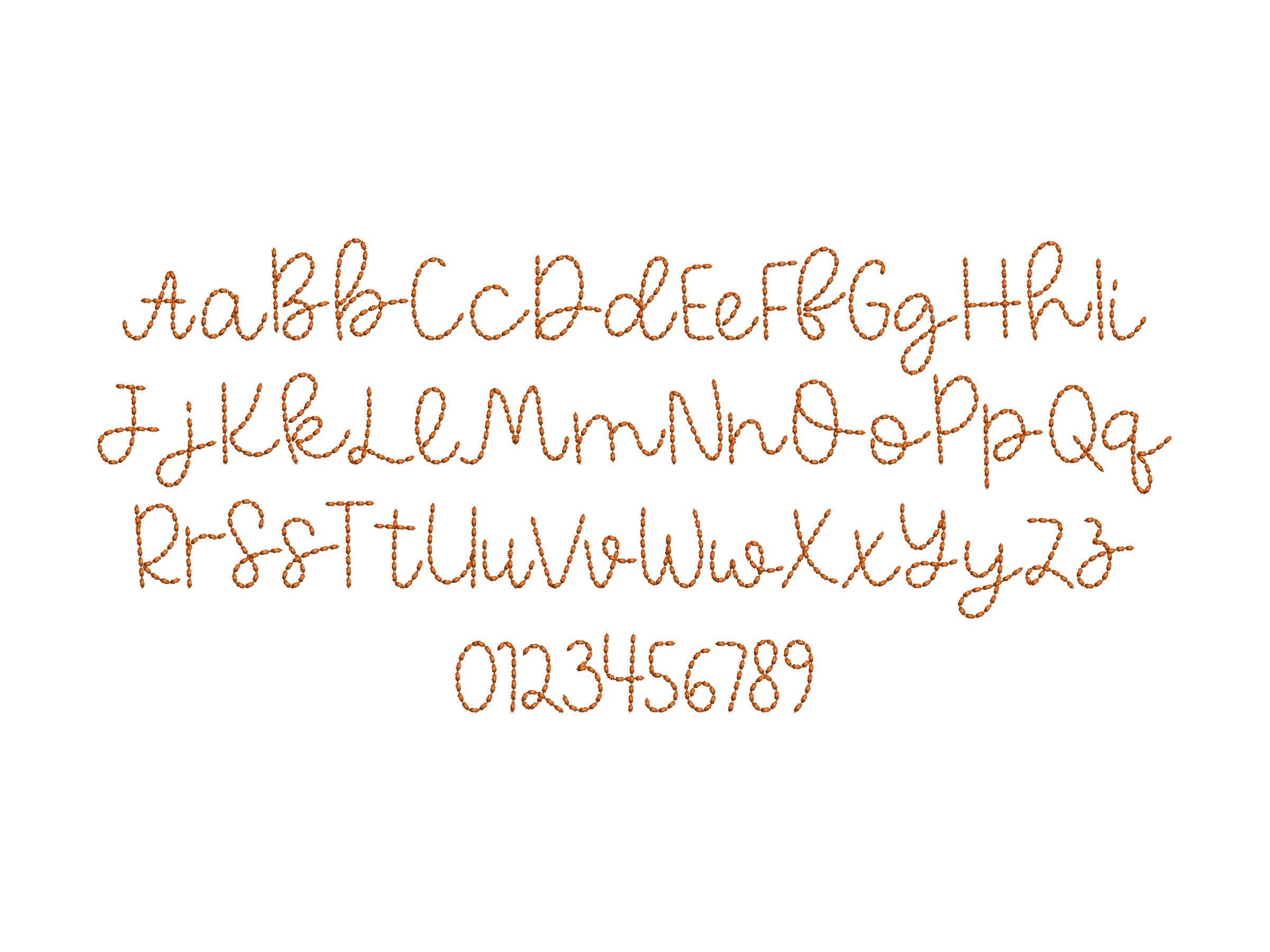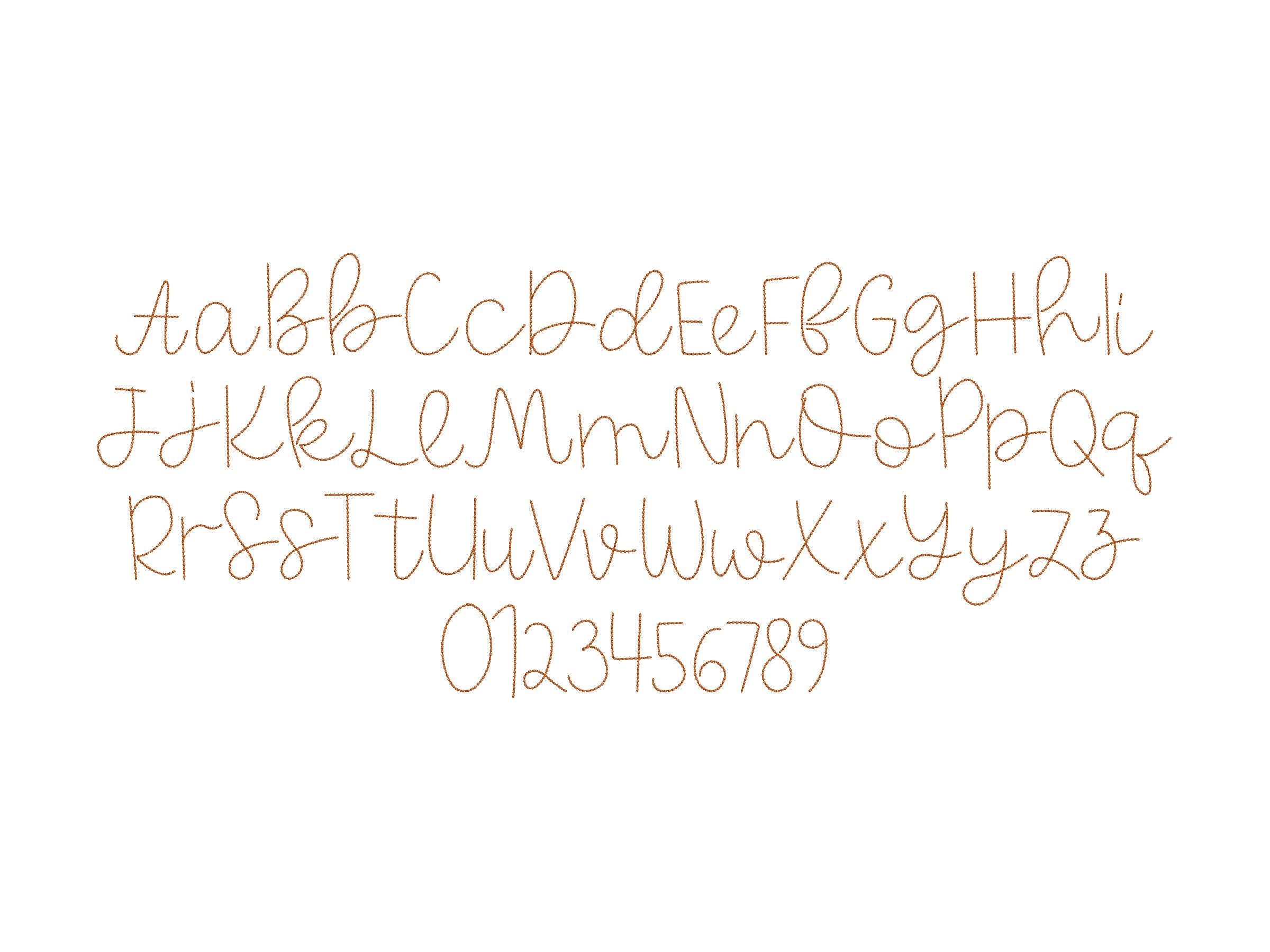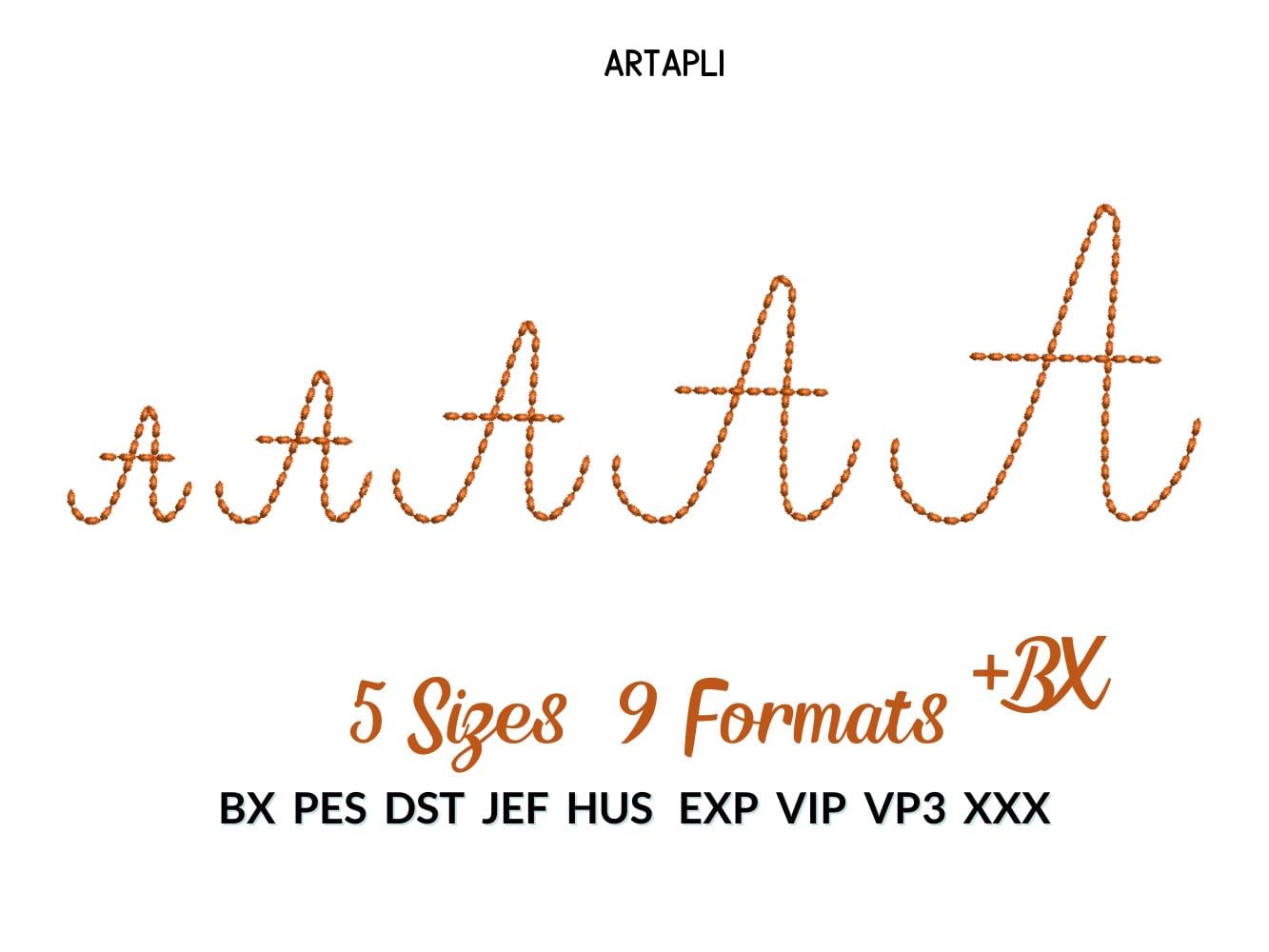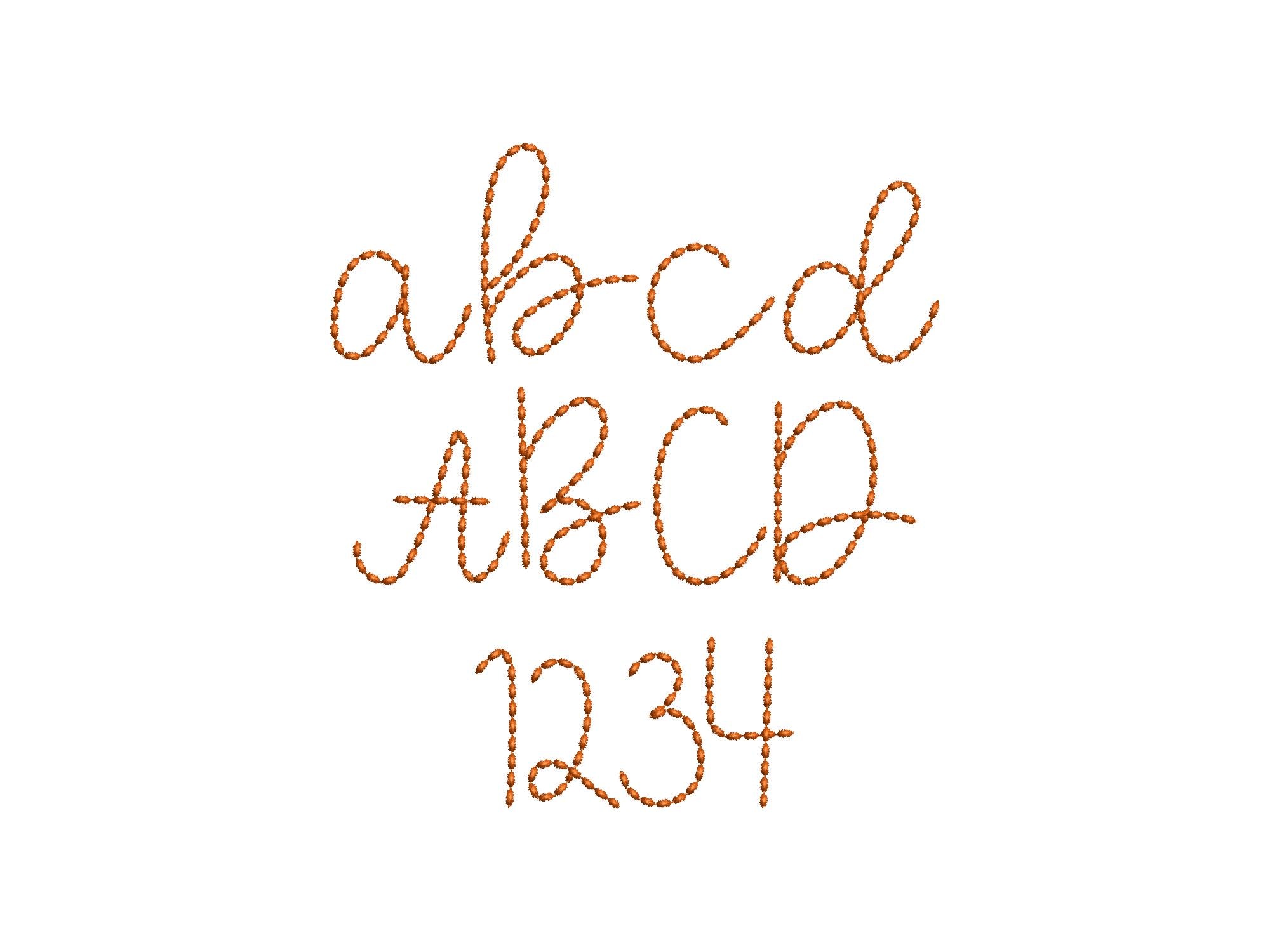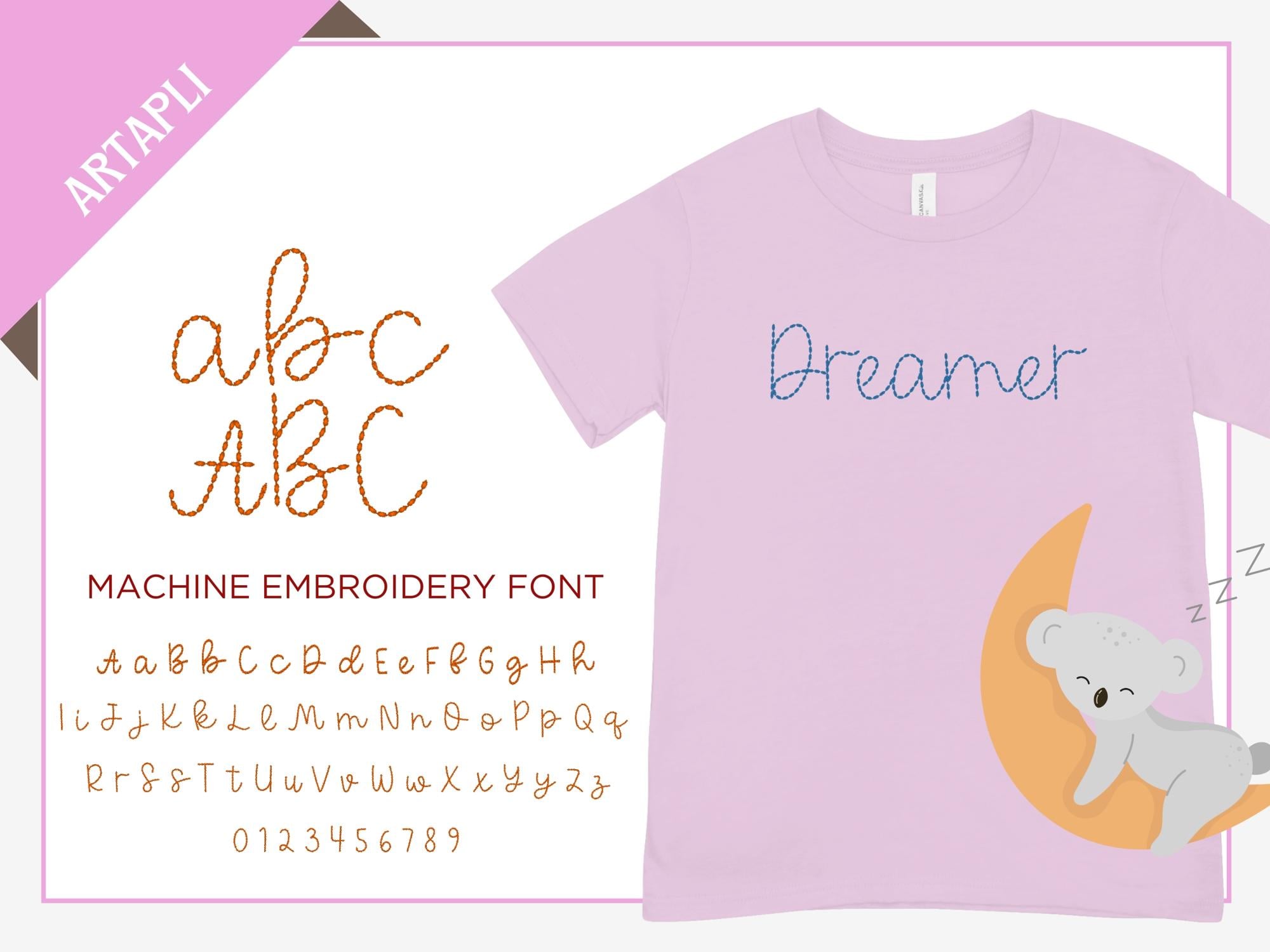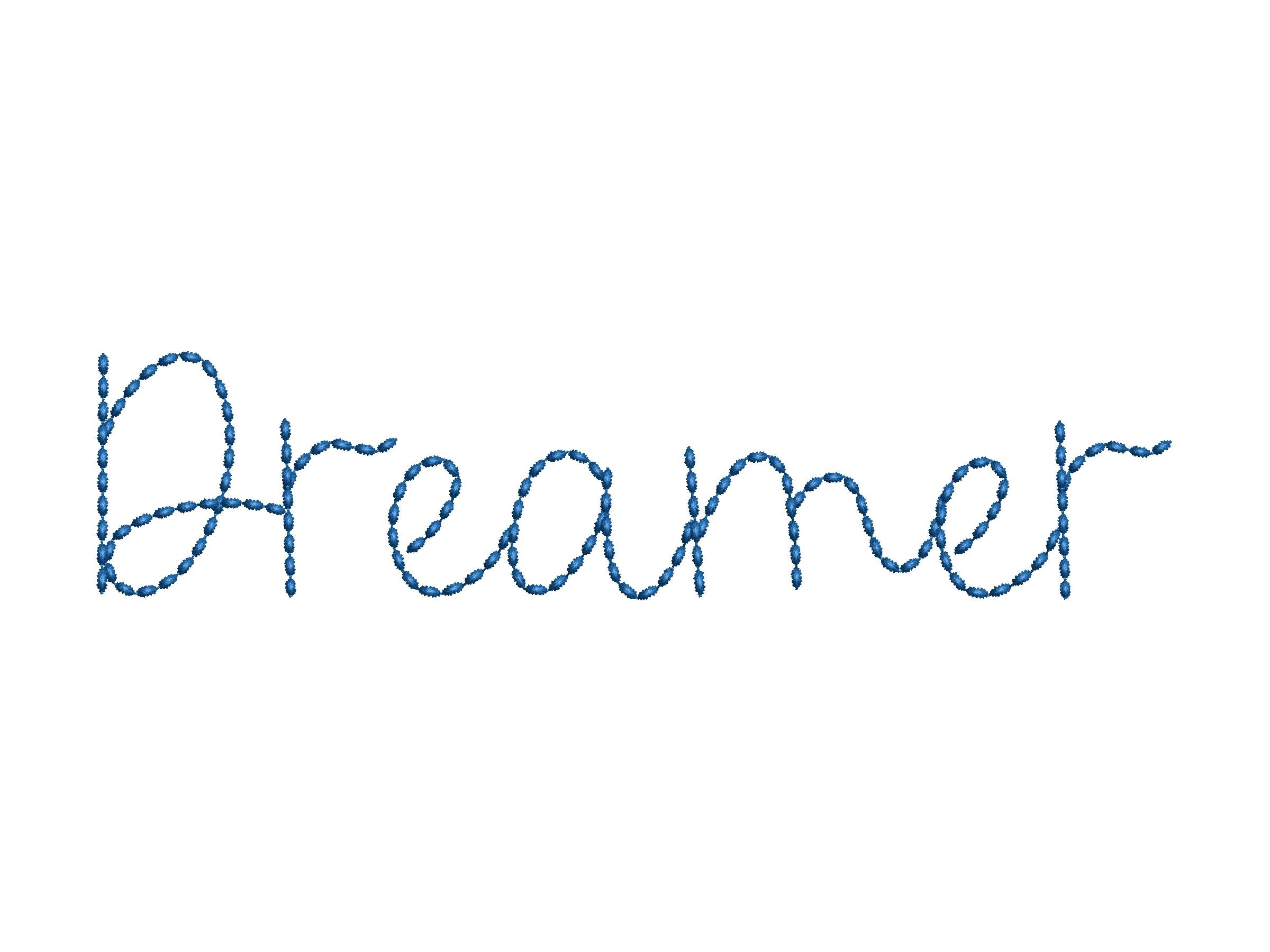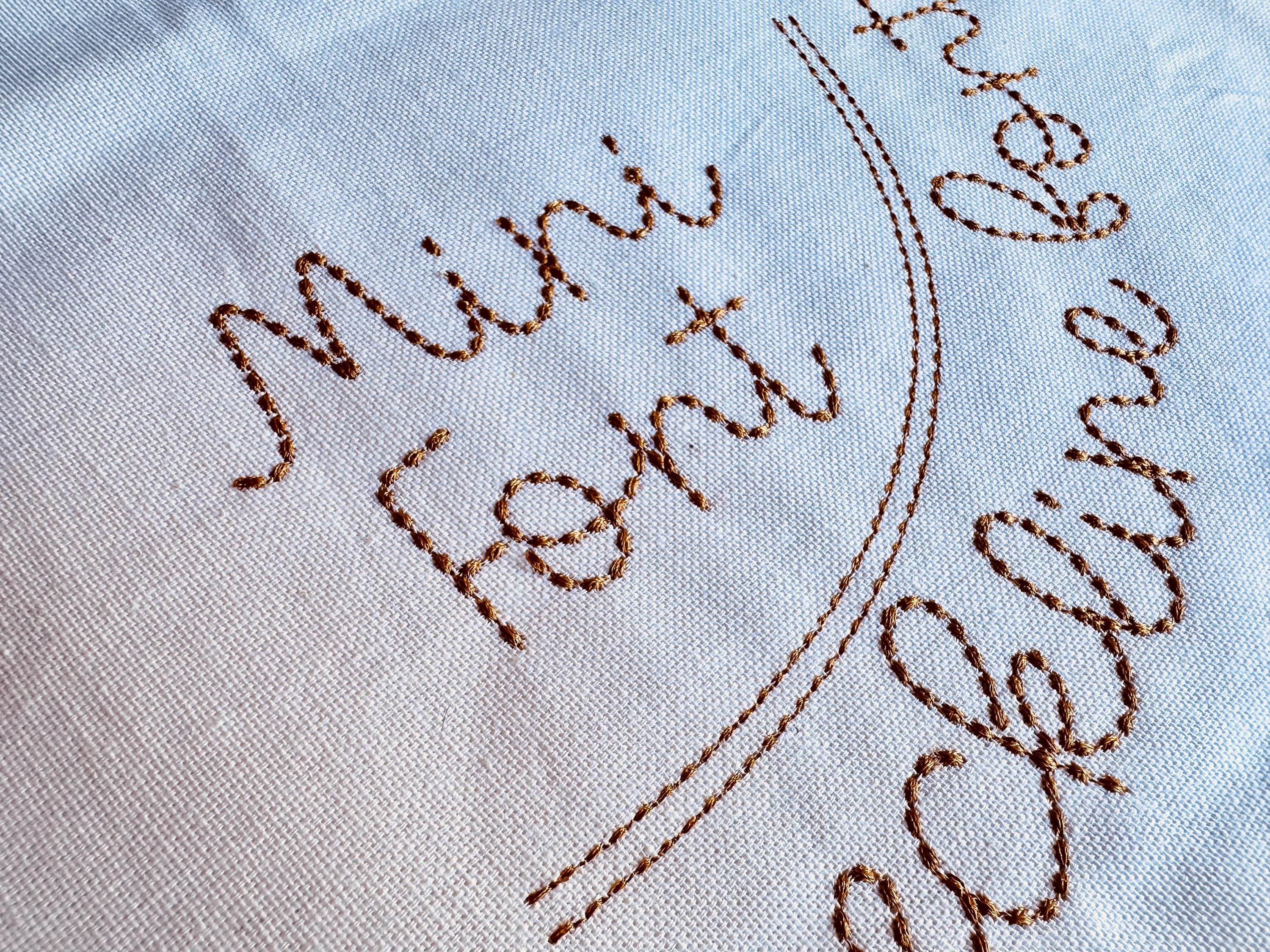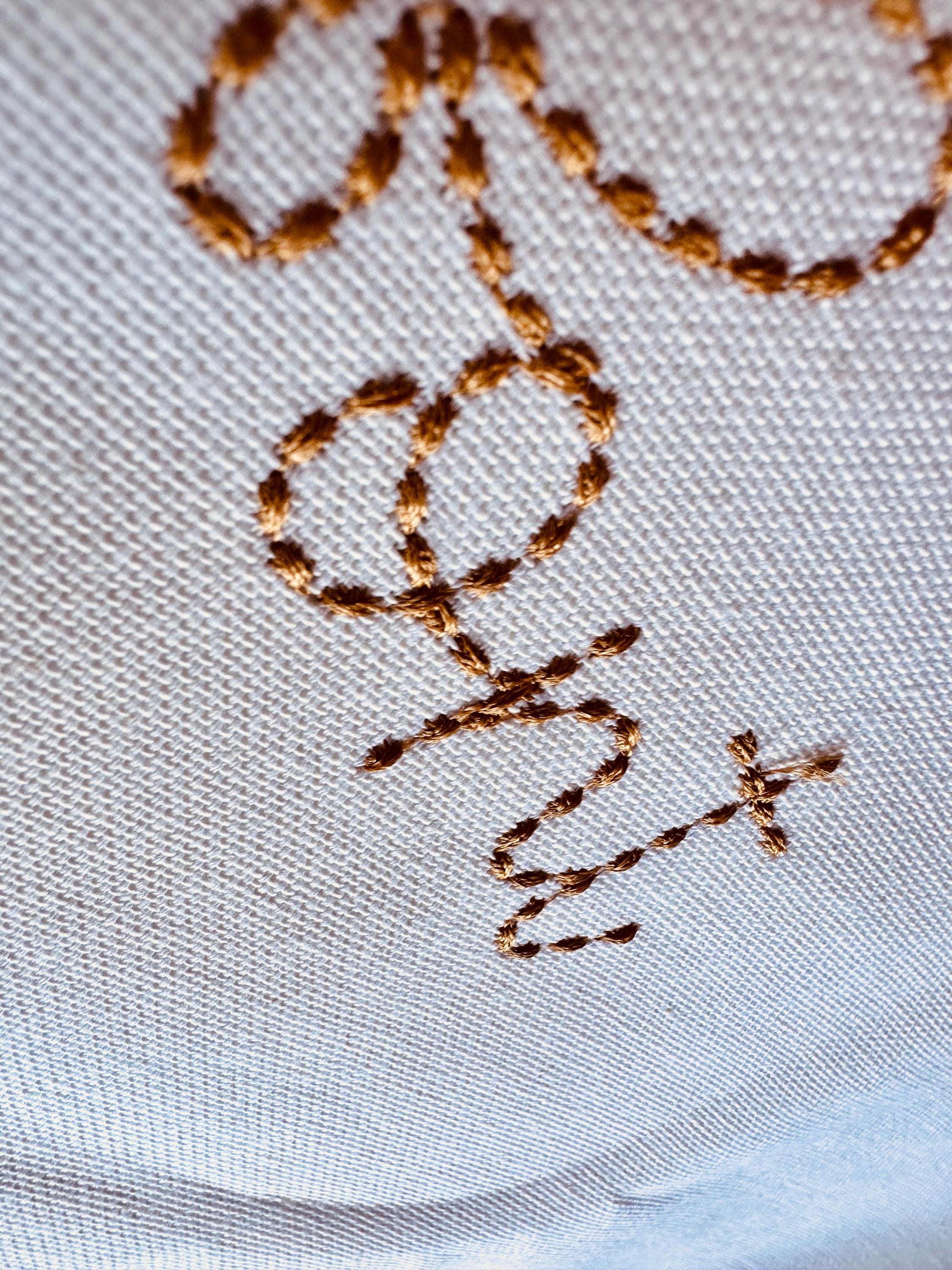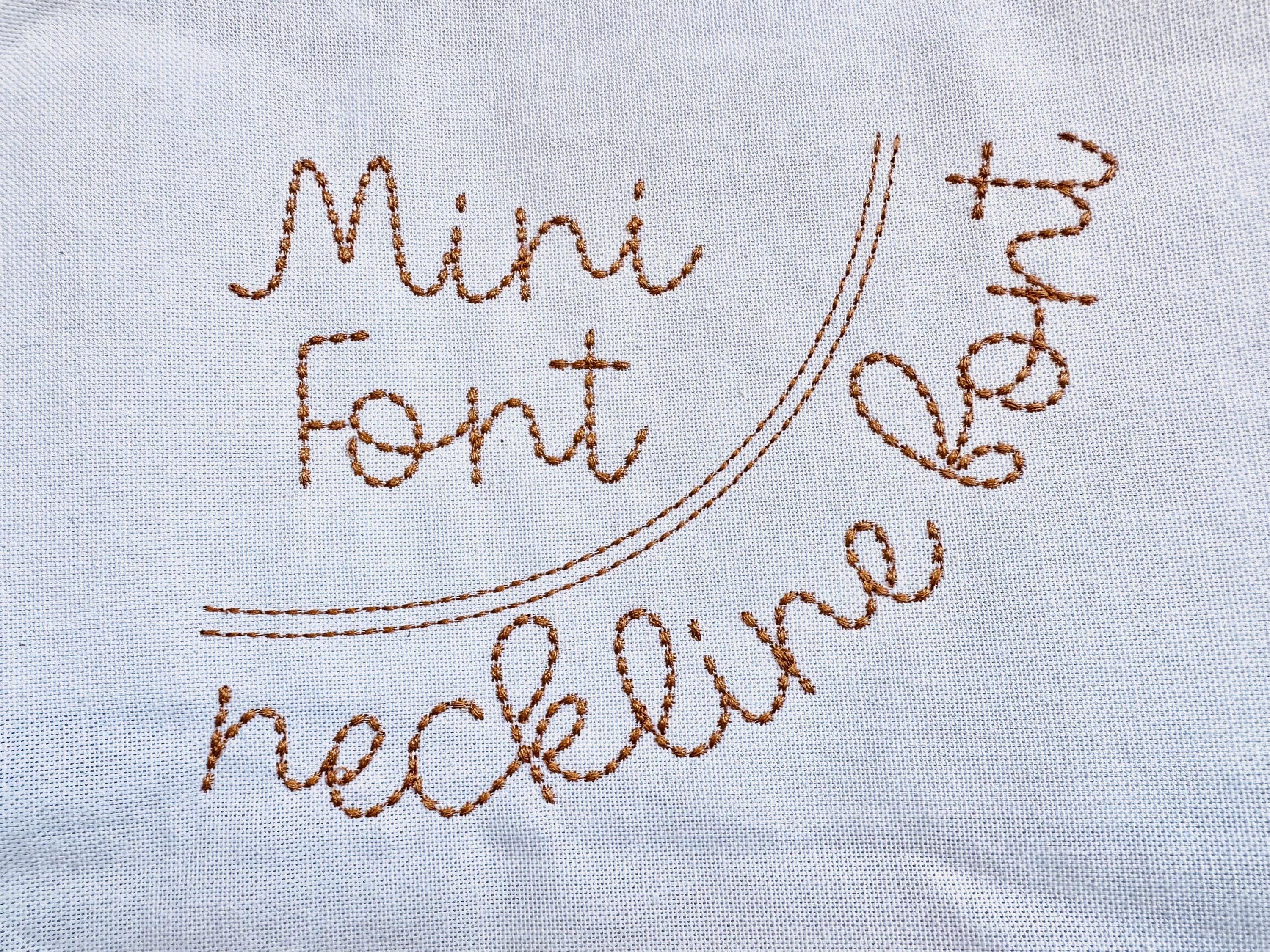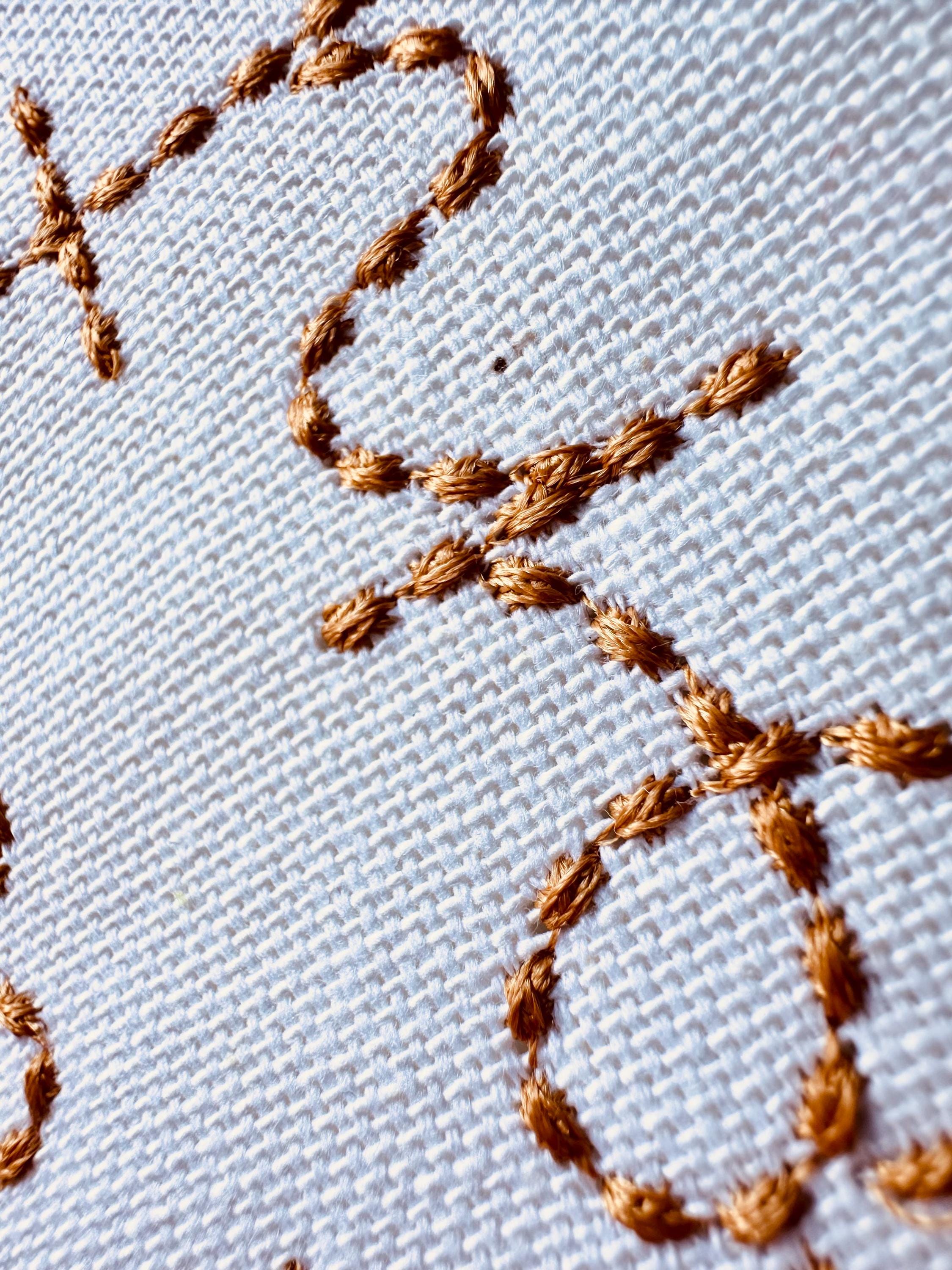
Sweetcake script FONT hand stitch effect alphabet machine embroidery designs bean stitch monogram letters and numbers sizes 1 to 2.9in and BX included
Entire alphabet uppercase and lowercase letters Aa-Zz and numbers 0-9.